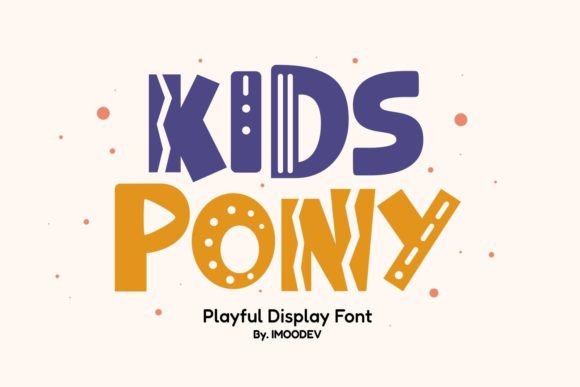
Journey into a world of whimsy and enchantment with Kids Pony Font, a decorative masterpiece that will ignite your imagination and add a touch of magic to your creative endeavors. Its smooth curves and elegant ligatures dance across the page, captivating your audience with their sheer beauty and charm. Whether you're a seasoned designer or just starting out, Kids Pony Font is your passport to a world of endless possibilities.
With its versatility and wide range of applications, Kids Pony Font effortlessly adapts to any project, big or small. Create logos that pop, invitations that enchant, and branding that leaves a lasting impression. Let your imagination run wild as you design captivating magazines, photography that captivates, cards that warm hearts, and product packaging that demands attention.
This font is a chameleon, seamlessly blending into any project, from product mockups to mugs adorned with inspiring quotes. Transform your posters into works of art, labels into tiny masterpieces, and signatures into expressions of individuality. Craft editorials that resonate, websites that engage, and social media posts that spark conversations.
Kids Pony Font is not just a font; it's an experience. Immerse yourself in the world of art deco, where nostalgia meets modernity. Let your creativity soar as you design projects that evoke a sense of wonder and enchantment. Whether you're a freelancer, a creative agency, or a corporate giant, Kids Pony Font empowers you to leave your mark on the world.